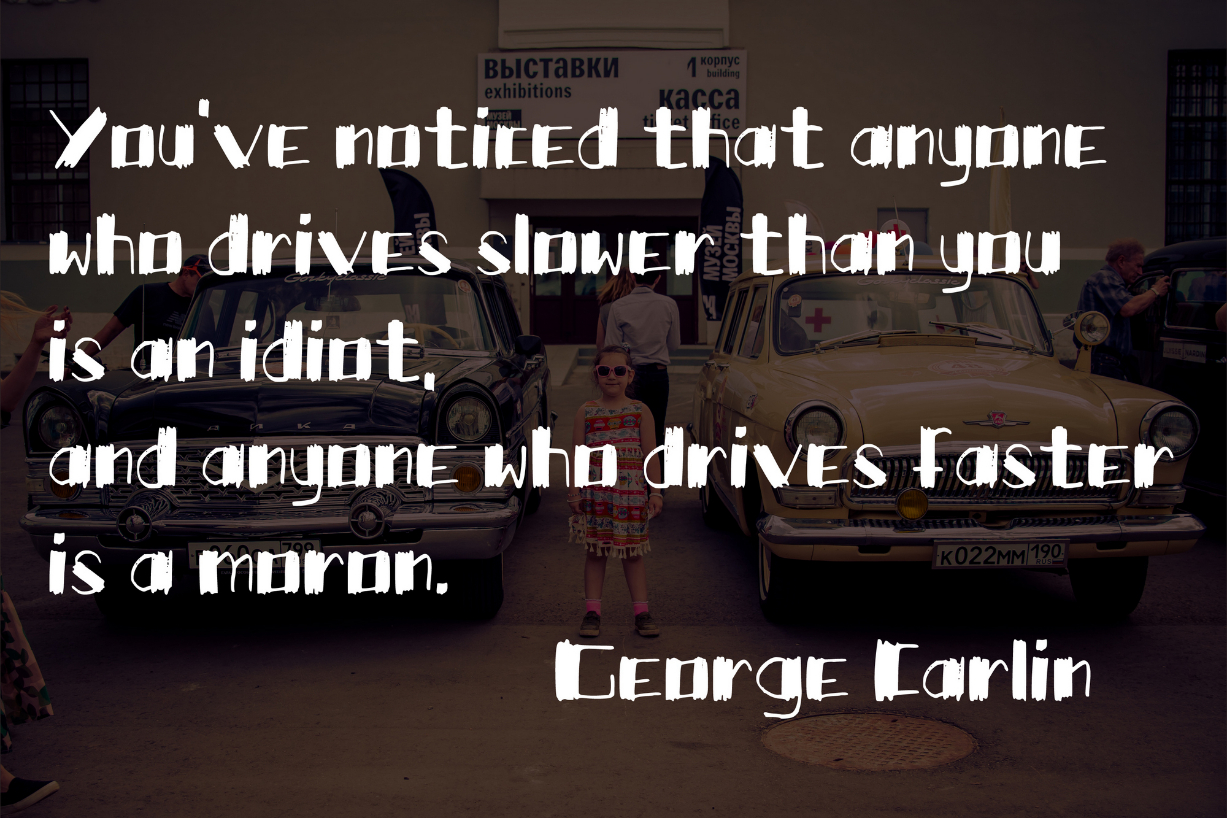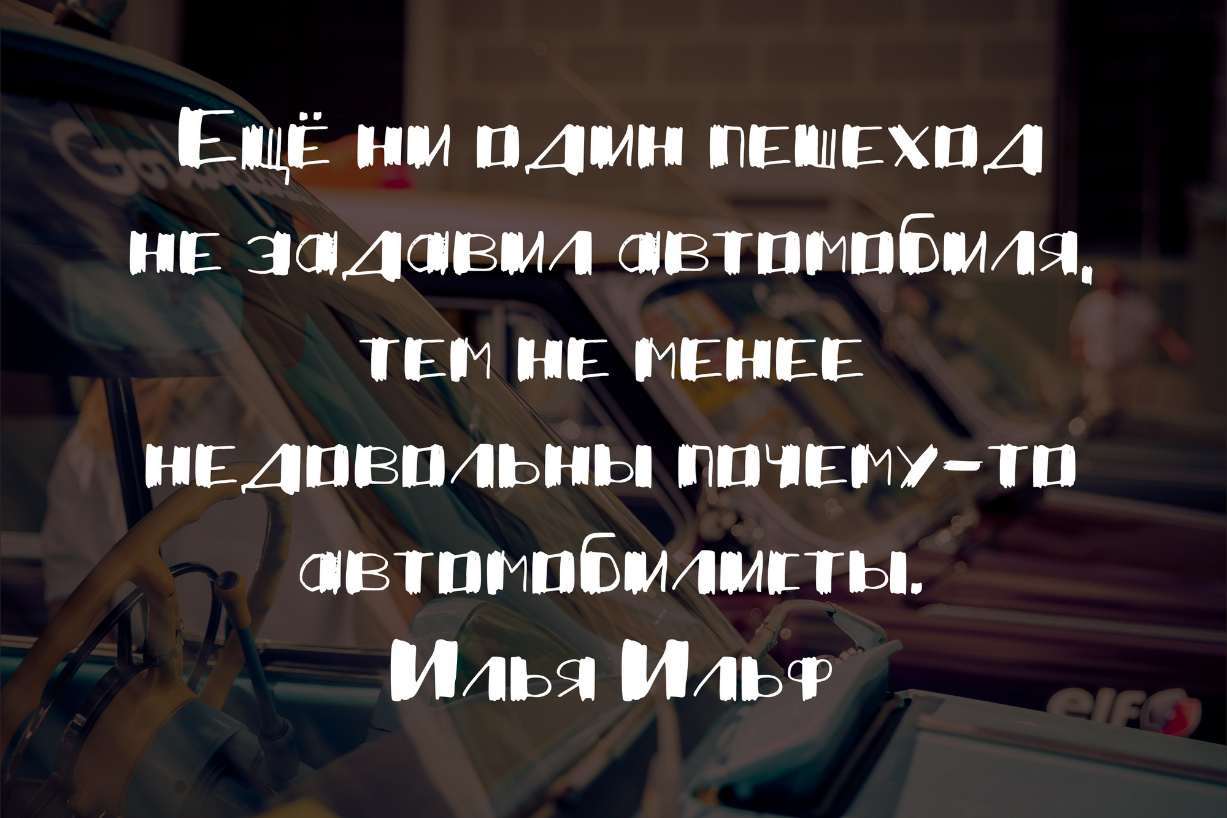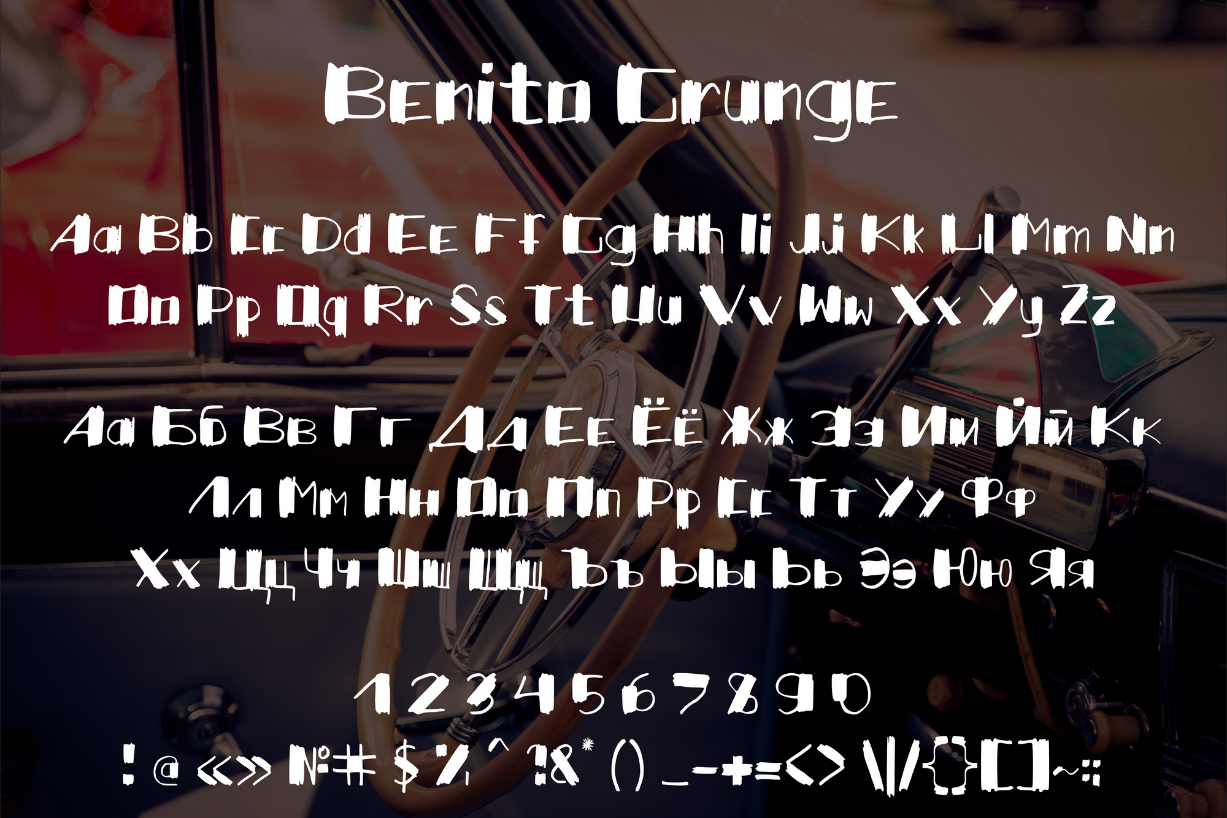
About Benito Grunge Font
Benito Grunge is an art-deco handwritten font with a grunge style. It will elevate a wide range of design projects to the highest level, be it branding, headings, wedding designs, invitations, signatures, logos, labels, and much more!